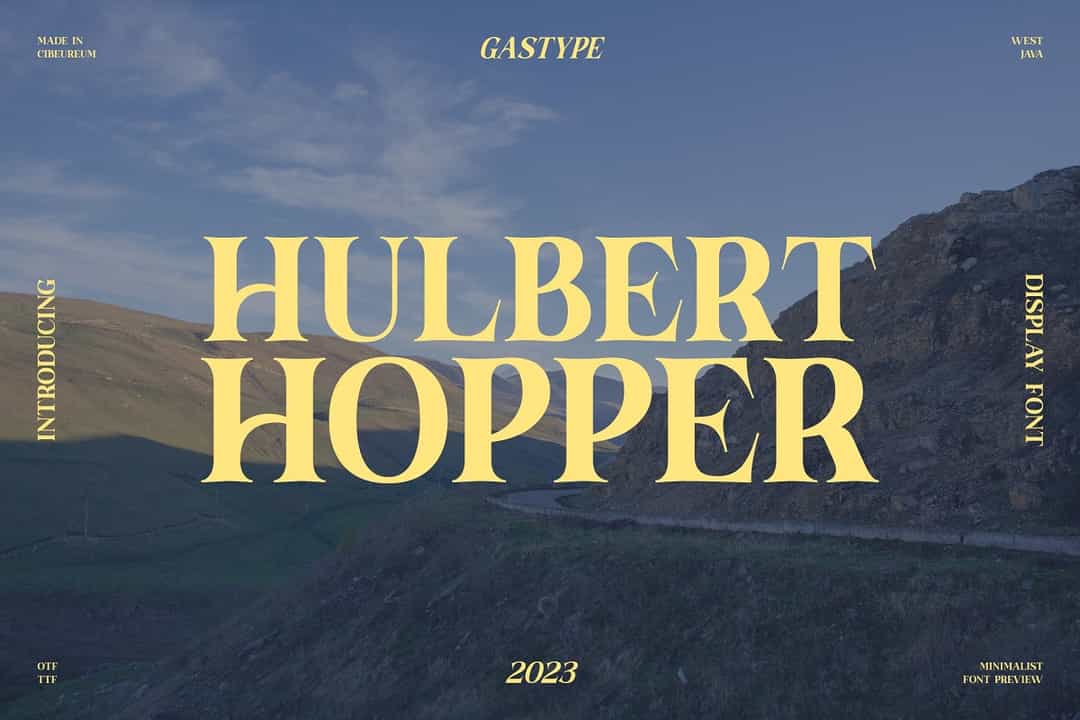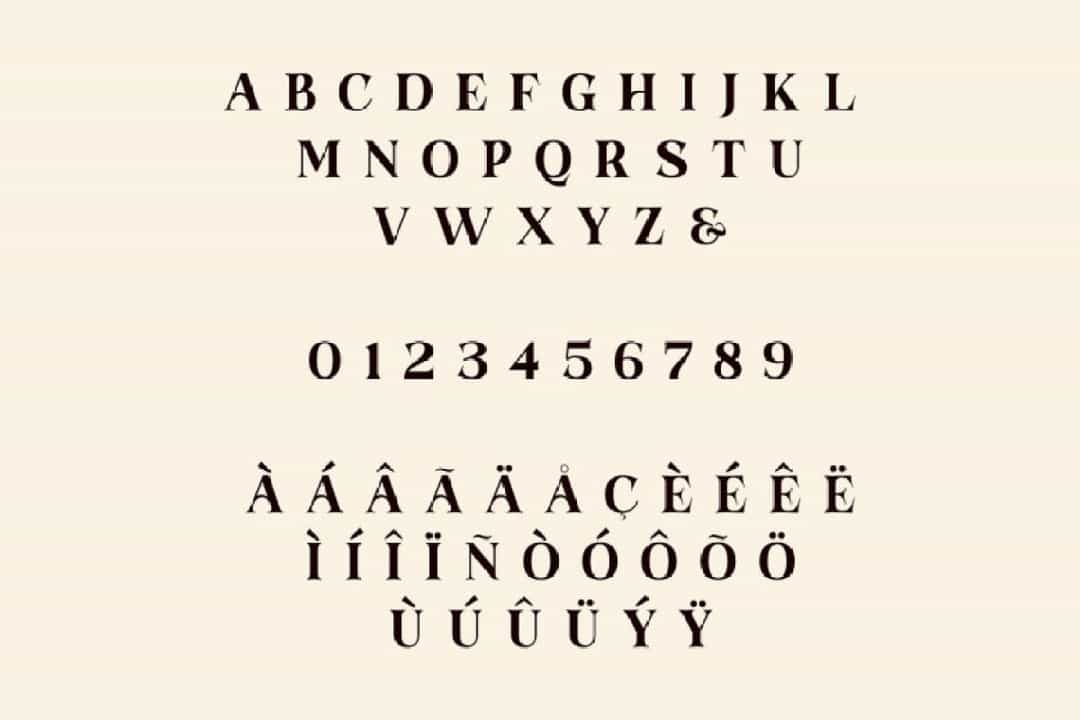
Hulbert Hopper is an exquisite serif display font created for those who appreciate retro style. This font boasts uppercase letters as well as multilingual symbol punctuation marks and numerals making it suitable for many design-related projects.